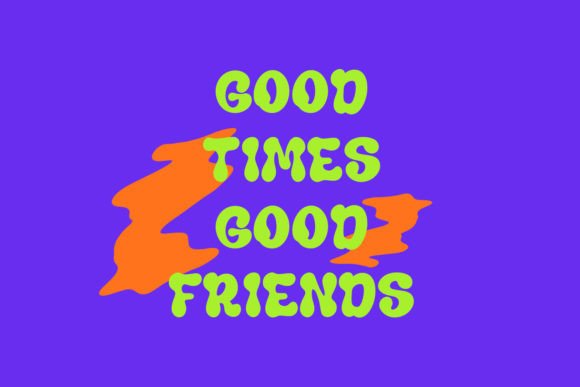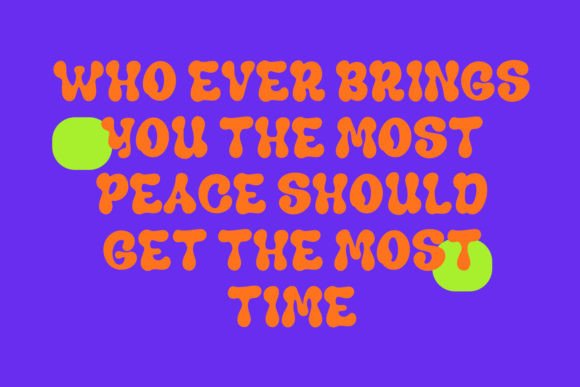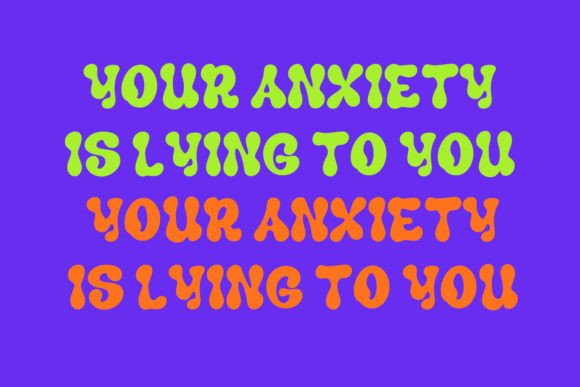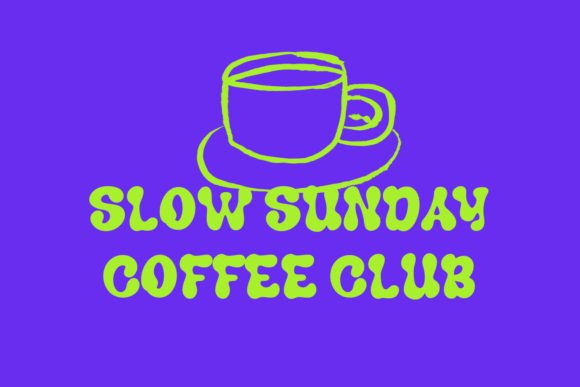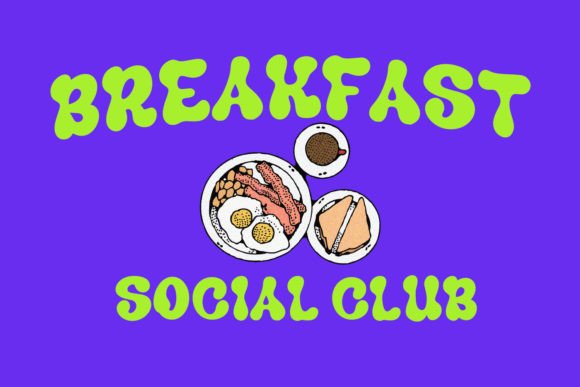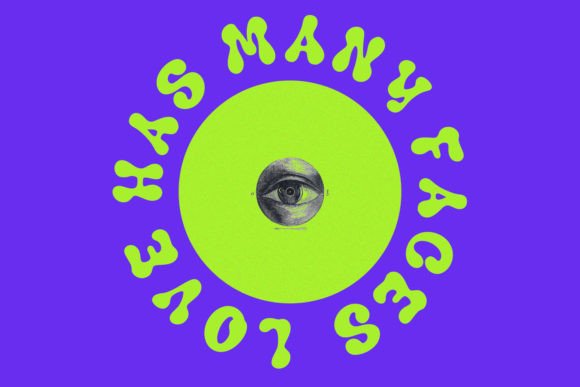
Introducing Brats Font: The Funky and Cool Display Font You Need
Are you tired of using the same old fonts in your designs? Look no further than Brats Font, a masterfully designed display font that’s sure to become a true favorite. With its retro, groovy vibe, Brats Font is perfect for creating unique and eye-catching designs that will set you apart from the crowd.
The Inspiration Behind Brats Font
Brats Font is inspired by the fun and carefree spirit of the 1960s and 1970s. Its creators wanted to capture the essence of the era’s iconic typography, with its bold lines, curvaceous shapes, and playful flair. The result is a font that’s equal parts nostalgic and modern, making it perfect for designers and crafters who want to add a touch of retro charm to their work.
What Makes Brats Font So Special?
So, what sets Brats Font apart from other display fonts on the market? For starters, its unique blend of retro and modern elements makes it a true standout. The font’s bold, chunky lines and curvaceous shapes give it a funky, laid-back vibe that’s perfect for creating eye-catching headlines and titles. Plus, its highly legible design makes it easy to read, even at smaller sizes.
Brats Font is incredibly versatile, making it perfect for a wide range of design projects. Here are just a few ideas to get you started:
- Posters and Flyers: Use Brats Font to create bold, eye-catching posters and flyers that will grab attention and leave a lasting impression.
- Social Media Graphics: Add a touch of retro charm to your social media graphics with Brats Font, perfect for creating engaging and shareable content.
- Logos and Branding: Use Brats Font to create a unique and memorable logo that will help your brand stand out from the crowd.
- Crafting and Scrapbooking: Add a personal touch to your crafting and scrapbooking projects with Brats Font, perfect for creating custom titles and headings.
Tips for Using Brats Font
Here are a few tips for getting the most out of Brats Font:
- Experiment with Different Sizes: Brats Font looks great at a variety of sizes, so don’t be afraid to experiment and find the perfect size for your design.
- Pair it with Other Fonts: Brats Font pairs well with a variety of other fonts, so try combining it with some of your favorite fonts to create a unique and interesting design.
- Use it to Add Emphasis: Brats Font is perfect for adding emphasis to your design, so use it to draw attention to important information or to create a bold headline.
Brats Font is a funky and cool display font that’s sure to become a true favorite among designers and crafters. Its retro, groovy vibe makes it perfect for creating unique and eye-catching designs that will set you apart from the crowd. With its highly legible design and versatile style, Brats Font is perfect for a wide range of design projects, from posters and flyers to social media graphics and logos. So why wait? Give Brats Font a try today and see the difference it can make in your designs!
Brats Font: The Perfect Addition to Your Design Toolkit
In conclusion, Brats Font is a must-have for any designer or crafter looking to add a touch of retro charm to their work. Its unique blend of retro and modern elements makes it a true standout, and its highly legible design makes it easy to use in a variety of design projects. So if you’re looking for a font that’s fun, funky, and full of personality, look no further than Brats Font.